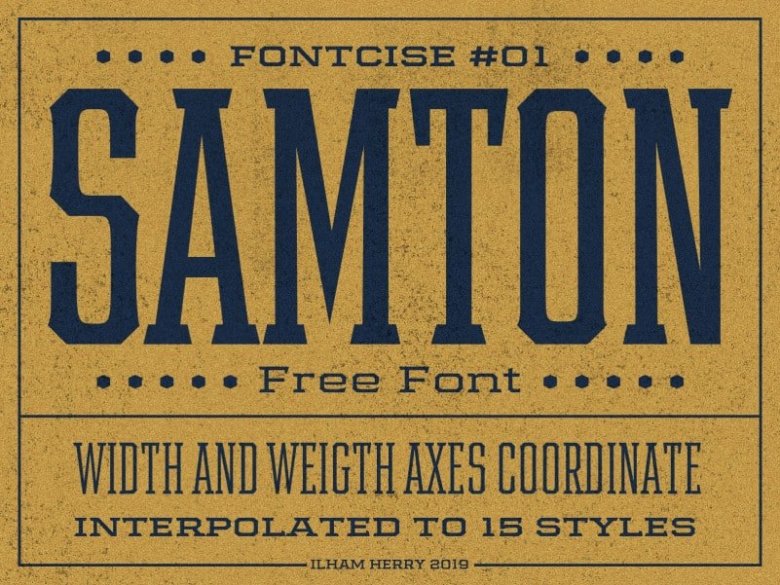
Samton Display Font Family
Samton Display Font is a simple and casual display font with a military feel. It’s designed and shared by Ilham Herry. And It’s an experimental font family created during a practice about axes coordinate. This font has a weight and width axes, with 4 masters and interpolated to 15 fonts. This typeface is perfectly suits for design in vintage style, crafts, retro badges, posters, headlines and other authentic projects.